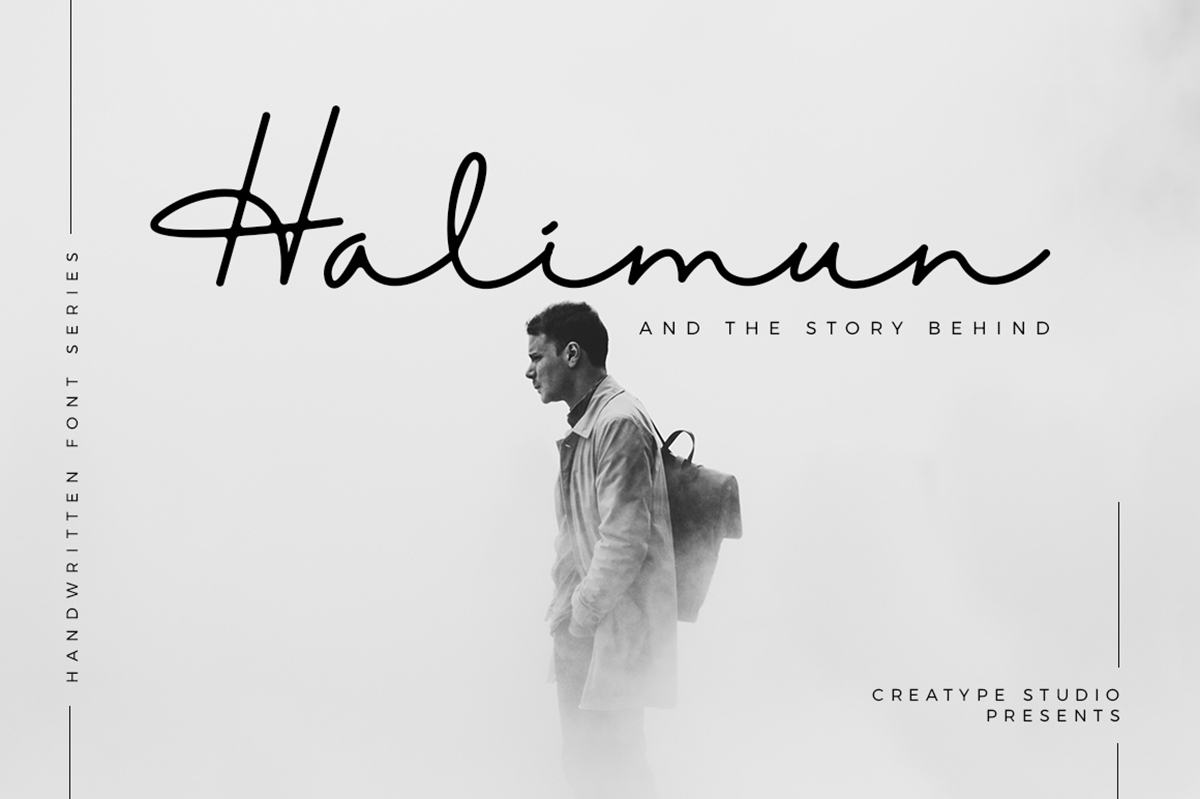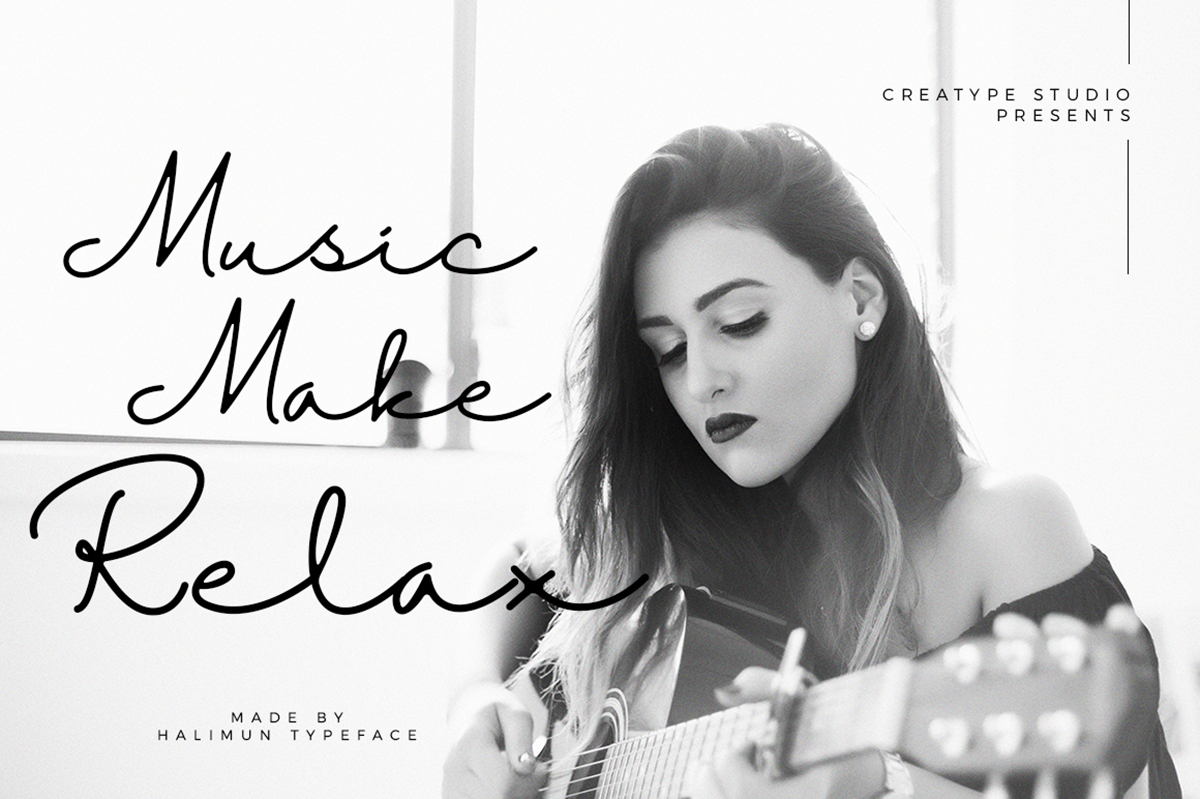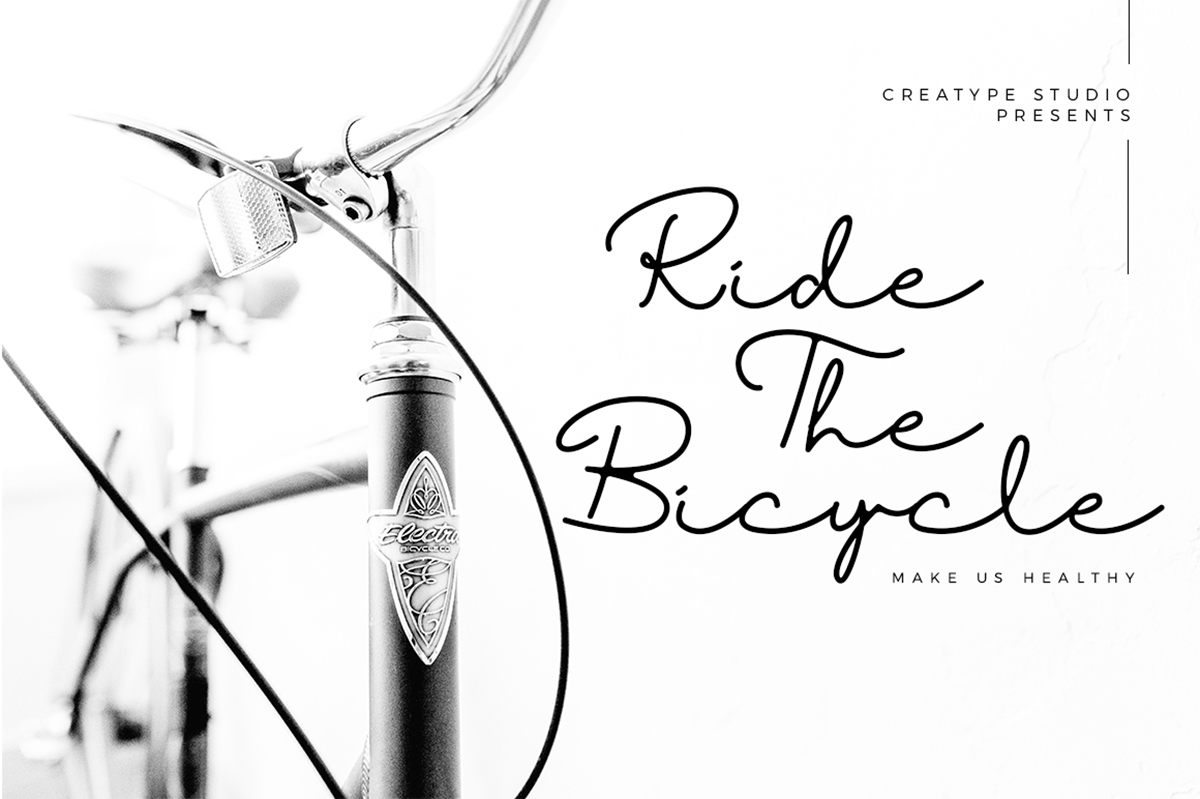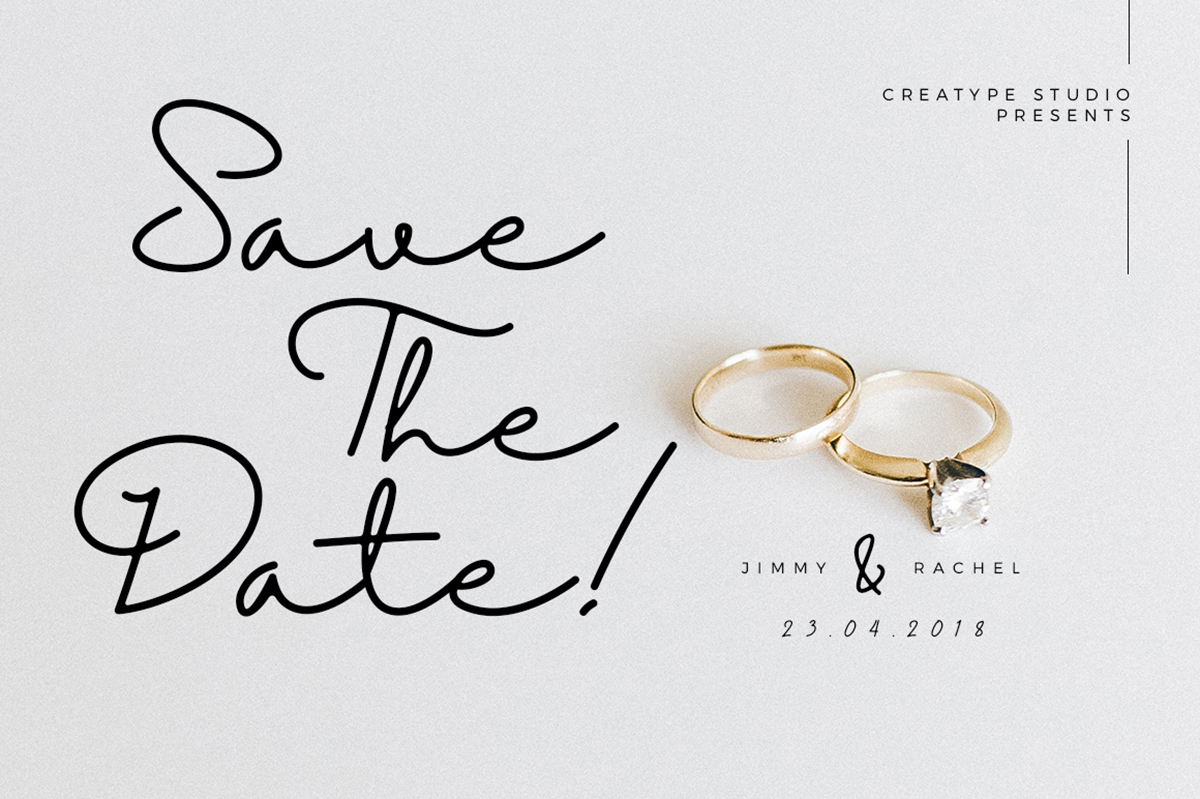
Halimun Free Font
Halimun Free Font is a new modern & fresh script with a handwritten and script style that make this font looks elegant, natural, stylish, and perfect for any awesome projects that need handwriting taste. Halimun would perfect for photography, watermark, social media posts, advertisements, logos & branding, invitation, product designs, label, stationery, wedding designs, product packaging, special events or anything that need handwriting taste. This free typeface was designed by talented Creatype Studio. If you like it don’t forget to check out the full version.